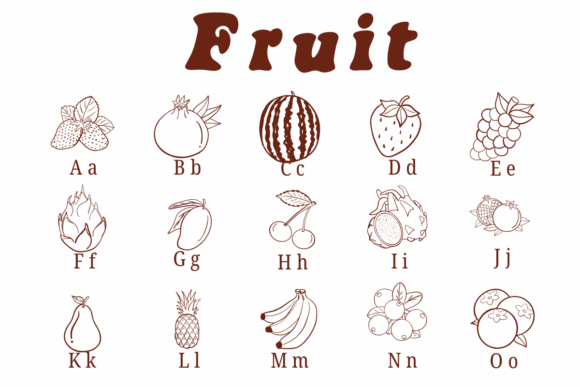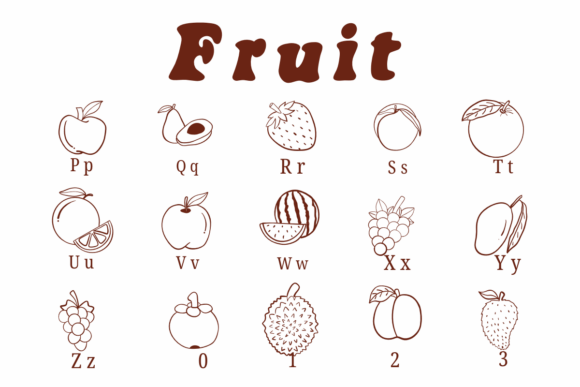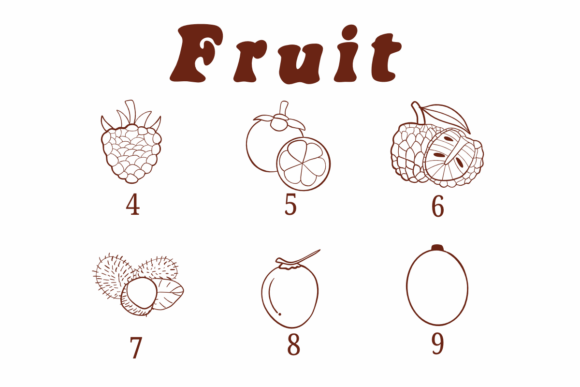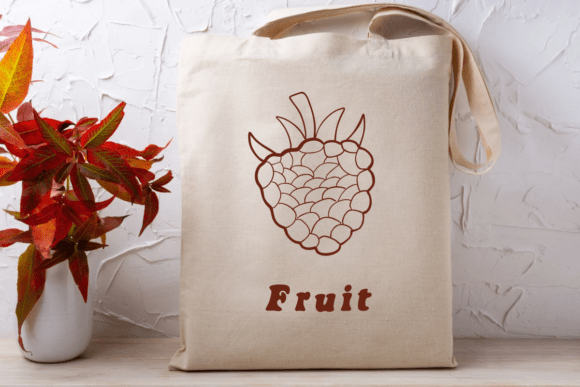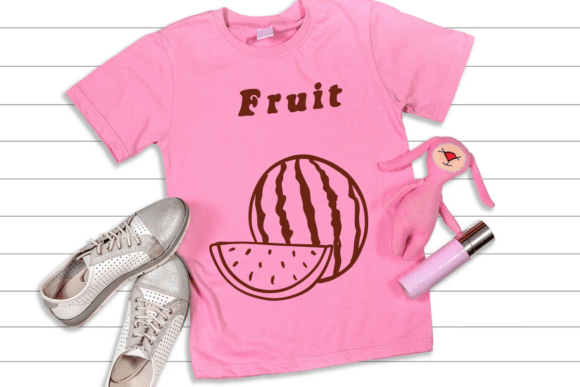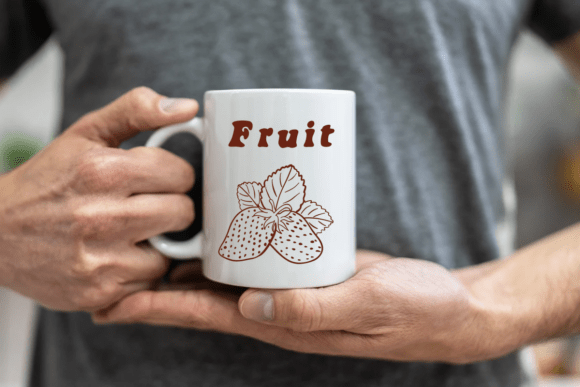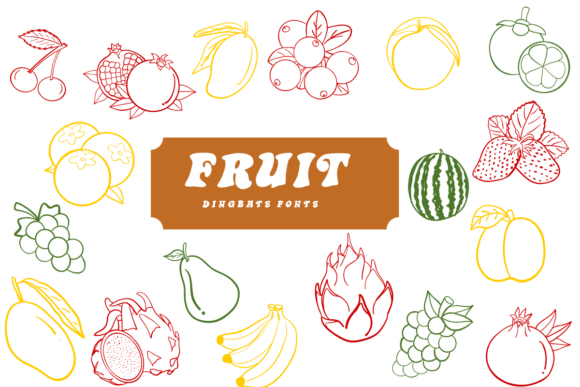
Fruit Font: The Sketched Style Dingbats Font for Creative Projects
Are you a designer or crafter looking for a unique and creative font to enhance your projects? Look no further than Fruit Font, a dingbats font with a charming sketched style. This versatile font is perfect for a wide range of creative projects, from wedding invitations and DIY crafts to decorations, logos, and more.
What is Fruit Font?
Fruit Font is a dingbats font that features a delightful sketched style, reminiscent of hand-drawn illustrations. The font is made up of various fruit and vegetable icons, including apples, bananas, grapes, and more. Each character is carefully crafted to give your projects a personal and whimsical touch.
Features of Fruit Font
- Sketched style: Fruit Font’s sketched style gives it a unique and charming look that’s perfect for creative projects.
- Dingbats font: As a dingbats font, Fruit Font features a collection of icons and symbols rather than traditional letters and numbers.
- Fruit and vegetable icons: The font includes a wide range of fruit and vegetable icons, from common fruits like apples and bananas to more exotic options like pineapples and pomegranates.
- Scalable: Fruit Font is highly scalable, making it perfect for use in a variety of projects, from small crafts to large-scale designs.
Uses for Fruit Font
Fruit Font is an incredibly versatile font that can be used in a wide range of creative projects, including:
- Wedding invitations: Add a touch of whimsy and charm to your wedding invitations with Fruit Font’s fruit and vegetable icons.
- DIY crafts: Use Fruit Font to create custom labels, signs, and decorations for your DIY crafts.
- Decorations: Create custom wall art, garlands, and other decorations using Fruit Font’s icons.
- Logos: Use Fruit Font to create a unique and memorable logo for your business or brand.
- Social media graphics: Add a pop of color and whimsy to your social media graphics with Fruit Font’s icons.
Tips for Using Fruit Font
Here are a few tips for getting the most out of Fruit Font:
- Experiment with different sizes and colors: Fruit Font’s sketched style looks great in a variety of sizes and colors, so don’t be afraid to experiment and find the look that works best for your project.
- Combine with other fonts: Fruit Font pairs well with a variety of other fonts, so try combining it with a script font or a bold sans-serif font to create a unique look.
- Use as a design element: Fruit Font’s icons can be used as a design element in their own right, so try using them to create a border or pattern in your project.
Fruit Font is a unique and versatile dingbats font that’s perfect for designers and crafters looking to add a touch of whimsy and charm to their projects. With its sketched style and wide range of fruit and vegetable icons, Fruit Font is sure to inspire creativity and bring a smile to your face. So why not give it a try and see what amazing projects you can create?